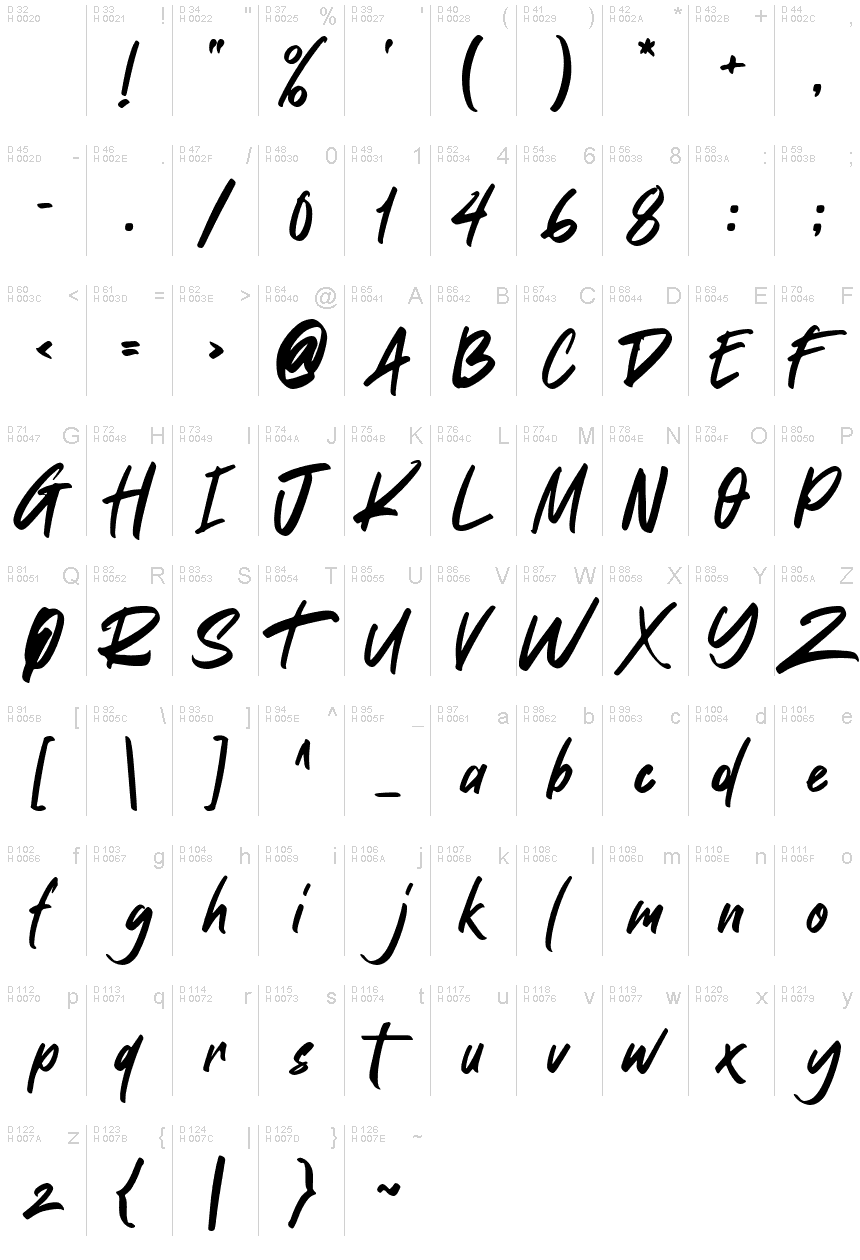
Quick Sketching
Quick Sketching, designed by Gassstype, is a handwritten font that captures the essence of spontaneous artistry. Its authentic style and dramatic movement evoke the charm of casual, freehand writing.
Ideal for a spectrum of creative endeavors, this font excels in crafting logos and posters with a modern, authentic vibe that radiates fun and sophistication. Quick Sketching's distinct elegance makes it a natural choice for labels, quotes, DIY branding materials, packaging designs, greeting cards, and web-based content. With its suitability for overlaying on photographs or enhancing scrapbooking projects, this font adds a touch of personal flair to each application.
Embrace the unique character of Quick Sketching to infuse your projects with an effortlessly natural look that stands out in any context.